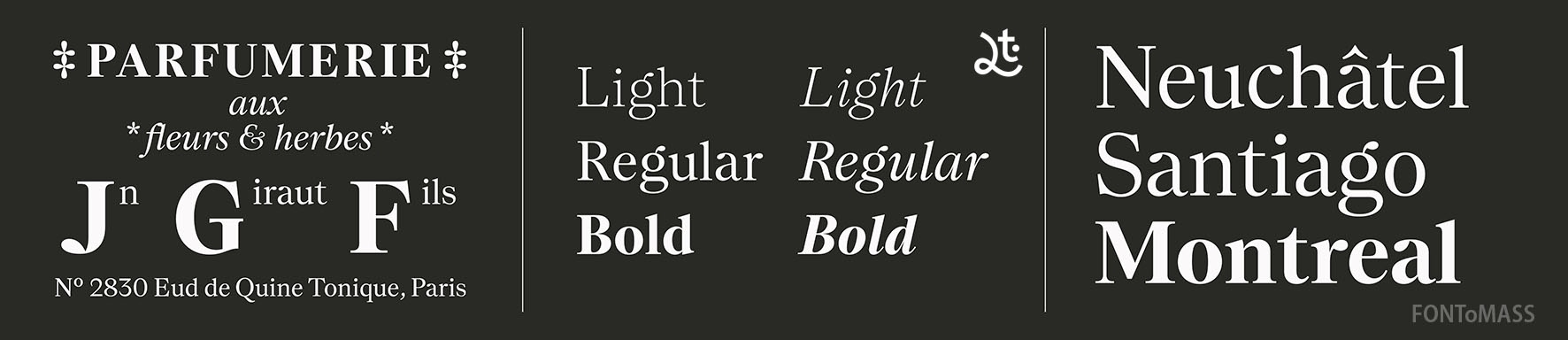
Nantes Font
Nantes Font is perfect for French cuisine branding, European tourism marketing, luxury hospitality, boutique hotels, artisanal food packaging, wine labels, cultural exhibitions, refined restaurant menus, elegant fashion campaigns, and sophisticated lifestyle publications.
What makes Nantes Font exciting is its European sophistication that embodies the refined elegance of French culture and continental charm through gracefully crafted letterforms. This distinguished typeface combines classical European typography with contemporary functionality, creating a personality that communicates culture, refinement, and authentic French sophistication. The font's continental character and elegant appeal make it perfect for brands seeking to evoke the timeless allure of European craftsmanship and the sophisticated charm of French artisanal tradition.
The Nantes Font family includes Regular, Bold, Light, Medium, Italic, Elegant, Refined, and Classic variants. Each weight maintains the font's European character while providing comprehensive typographic flexibility for sophisticated brand identity systems and continental design applications across diverse cultural platforms.
Whether you're developing luxury hospitality identities, creating European tourism campaigns, designing artisanal food branding, or building sophisticated cultural materials, Nantes Font delivers unmatched continental appeal and French sophistication. Its elegant presence makes it perfect for luxury hotels, French restaurants, artisanal producers, and cultural organizations seeking authentic European representation.
The font's classical proportions and refined details create an sophisticated reading experience that transports audiences to the charming streets of French cities and elegant European culture. Each letterform has been carefully crafted to preserve French typographic tradition while maintaining excellent readability across modern luxury applications.
This versatile typeface excels in cultural environments, offering designers the sophistication needed for comprehensive European brand communication strategies. The extensive character set includes French alternates, elegant ligatures, and continental symbols for luxury hospitality market positioning and cultural brand storytelling.
Embrace the power of continental design that celebrates French culture and sophisticated European craftsmanship.